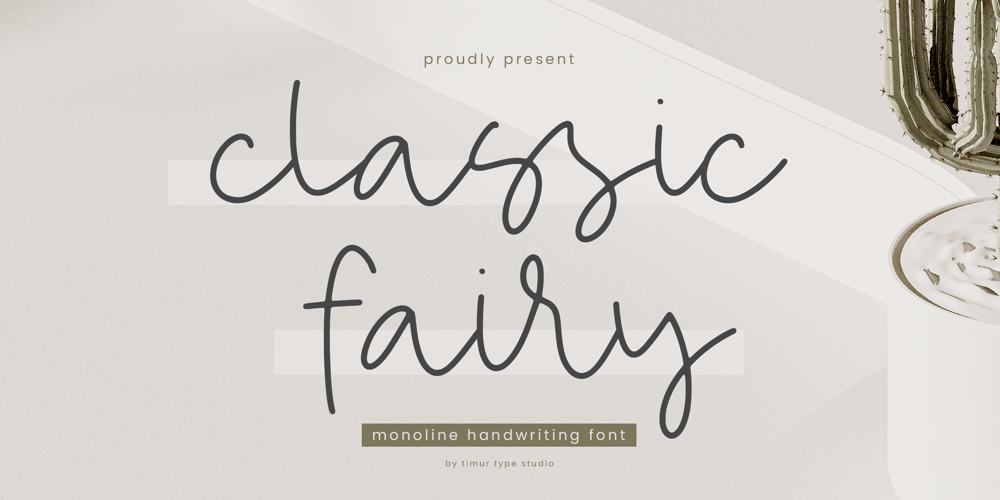
Classic Fairy Font Family was designed by Wara Sigit Tri Pamungkas and published by Timurtype. Classic Fairy contains 1 styles and family package options. Introduced by Timurtype Studio!Classic Fairy is a Monoline Handwriting Font This font showcases the art of monoline handwritten fonts – a symphony of elegance and charm. Let charming threads weave a tale of elegance in your designs, where every curve whispers sophistication and timeless appealClassic Fairy Font also supports multilingualism.Enhance your designs with our original fonts, feel free to comment or provide feedback, Enjoy the fonts 😊Thank You